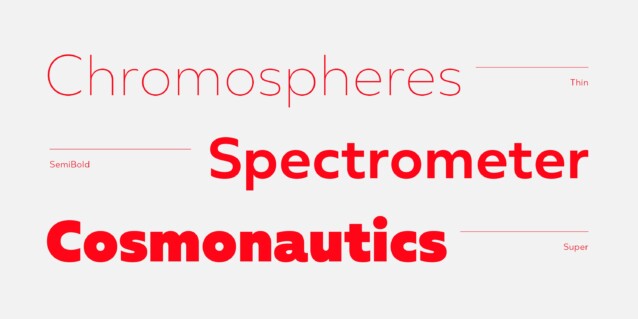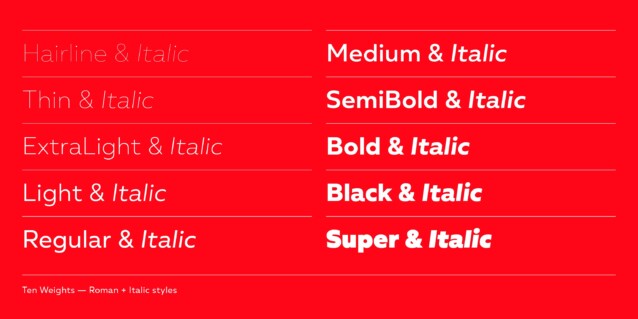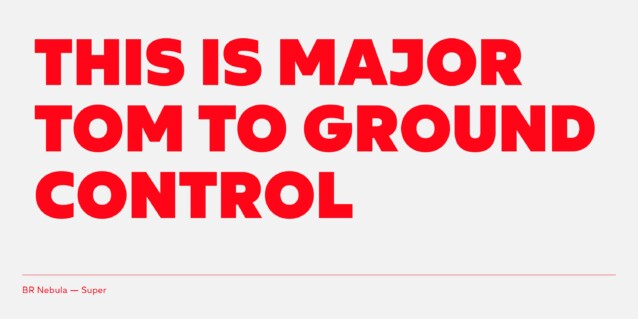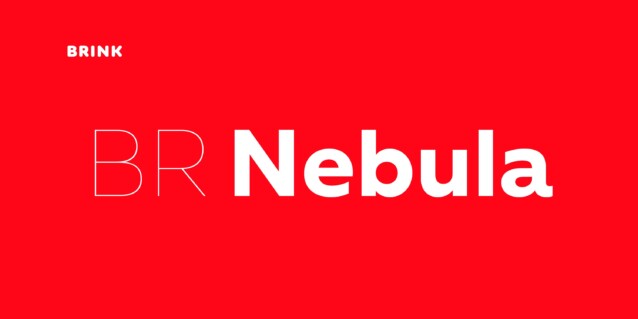
BR Nebula Font is the perfect choice for clean, minimalist, and professional designs. BR Nebula takes inspiration from these early explorations in sans serif design and re-imagines them for the modern age. Distinctive geometric letterforms have been refined and simplified with opened terminals to achieve a clear, legible and modern aesthetic.
BR Nebula is available in 20 contemporary styles, with weights ranging from Hairline to Super. The fonts also provide advanced typographic support with OpenType features such as case sensitive forms, stylistic alternates, slashed zeros and multiple figure sets. Also containing advanced language support as standard.